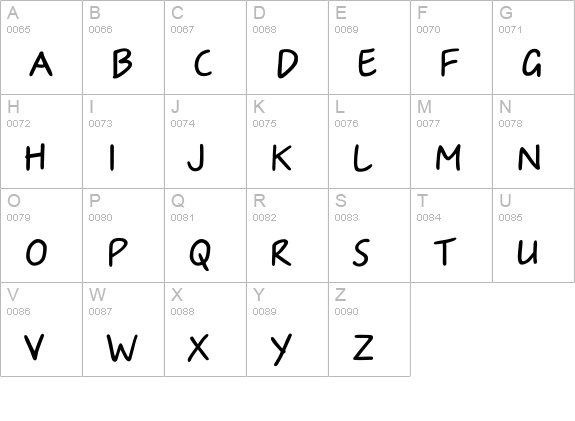
IrinaC Font Details
Introducing IrinaC, a stunningly beautiful and elegantly crafted font that will elevate your designs to new heights. With its delicate curves and graceful strokes, IrinaC exudes a sense of sophistication and refinement. This font is the perfect choice for any project that requires a touch of elegance, from wedding invitations to luxury branding. Its versatile nature allows it to seamlessly blend into any design concept, effortlessly enhancing the overall aesthetic. But what sets IrinaC apart is not just its stunning appearance, but also its accessibility. This font is freely available to download at FontsMarket.com, making it an invaluable resource for designers and creatives alike. Gone are the days of searching high and low for the perfect font – with IrinaC, it's just a few clicks away. Whether you're a professional designer or a passionate hobbyist, IrinaC will undoubtedly become a beloved addition to your font collection. Its timeless charm and effortless beauty will captivate your audience and leave a lasting impression. So don't miss out on the opportunity to enhance your designs with this exquisite font. Download IrinaC today and unlock a world of creativity and possibilities.